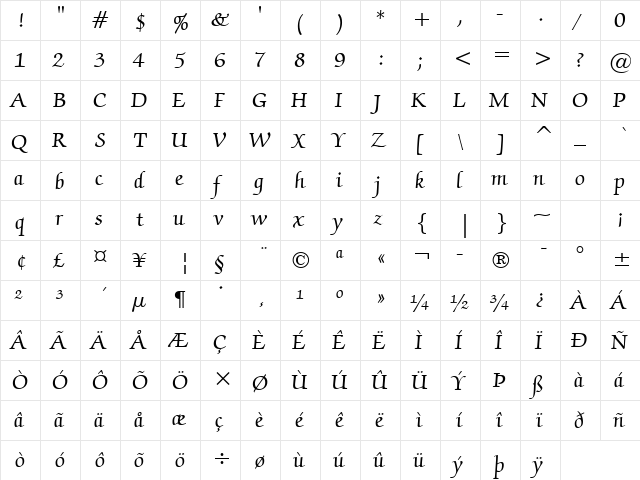
ZapfChan Md BT Medium Font Preview
ZapfChan Md BT Medium
Design Context for ZapfChan Md BT Typeface
ZapfChan Md BT is a composed and adaptable typeface that performs quietly and consistently across a wide range of design contexts.